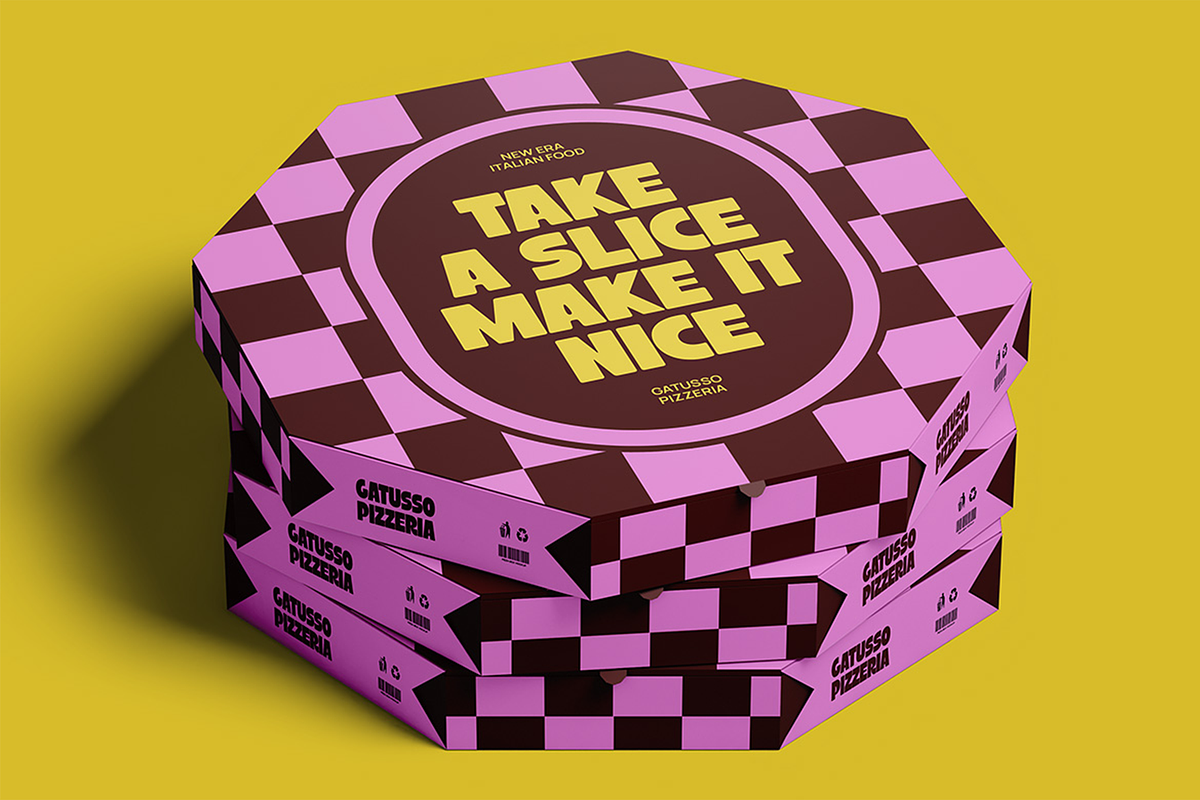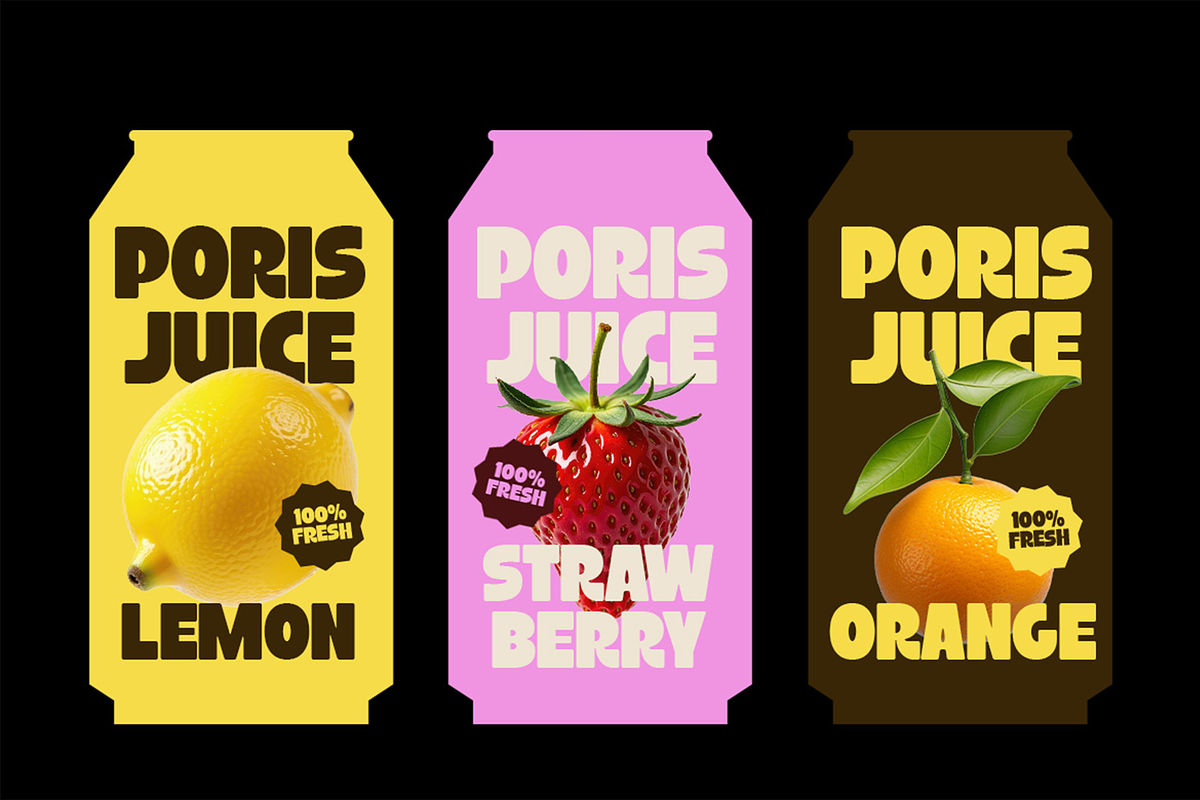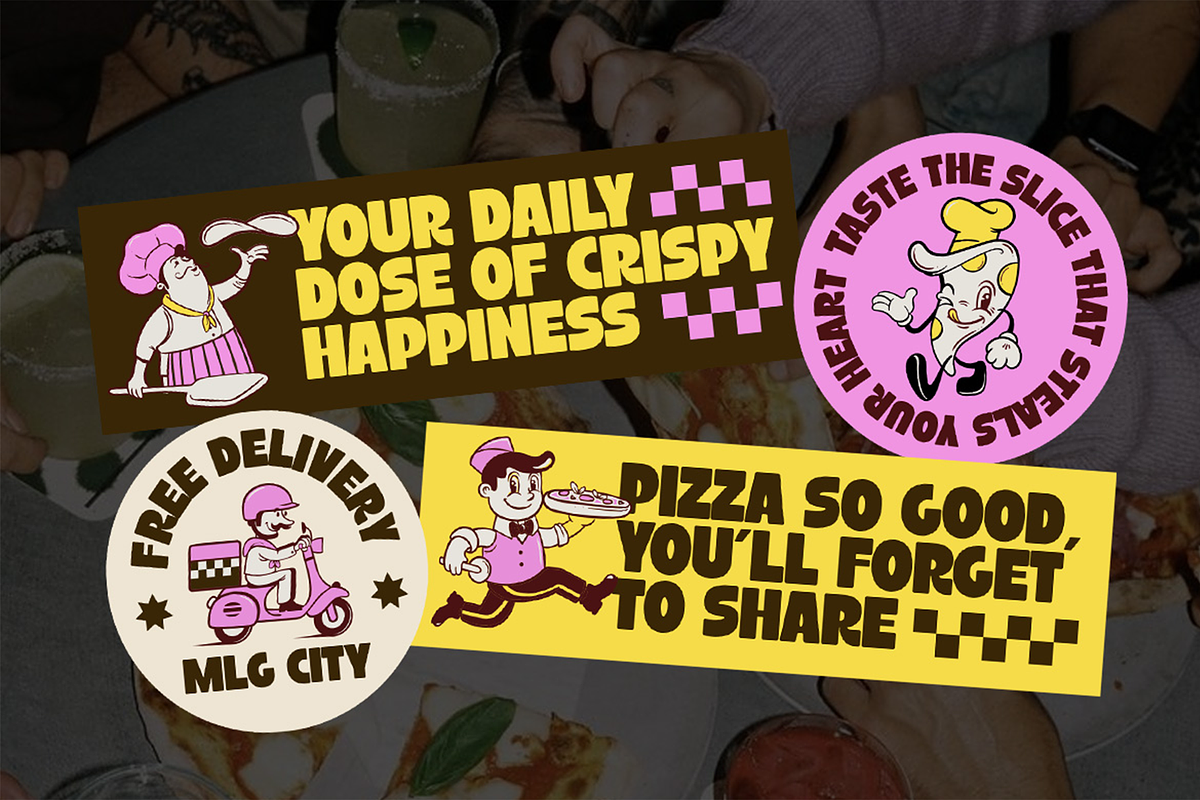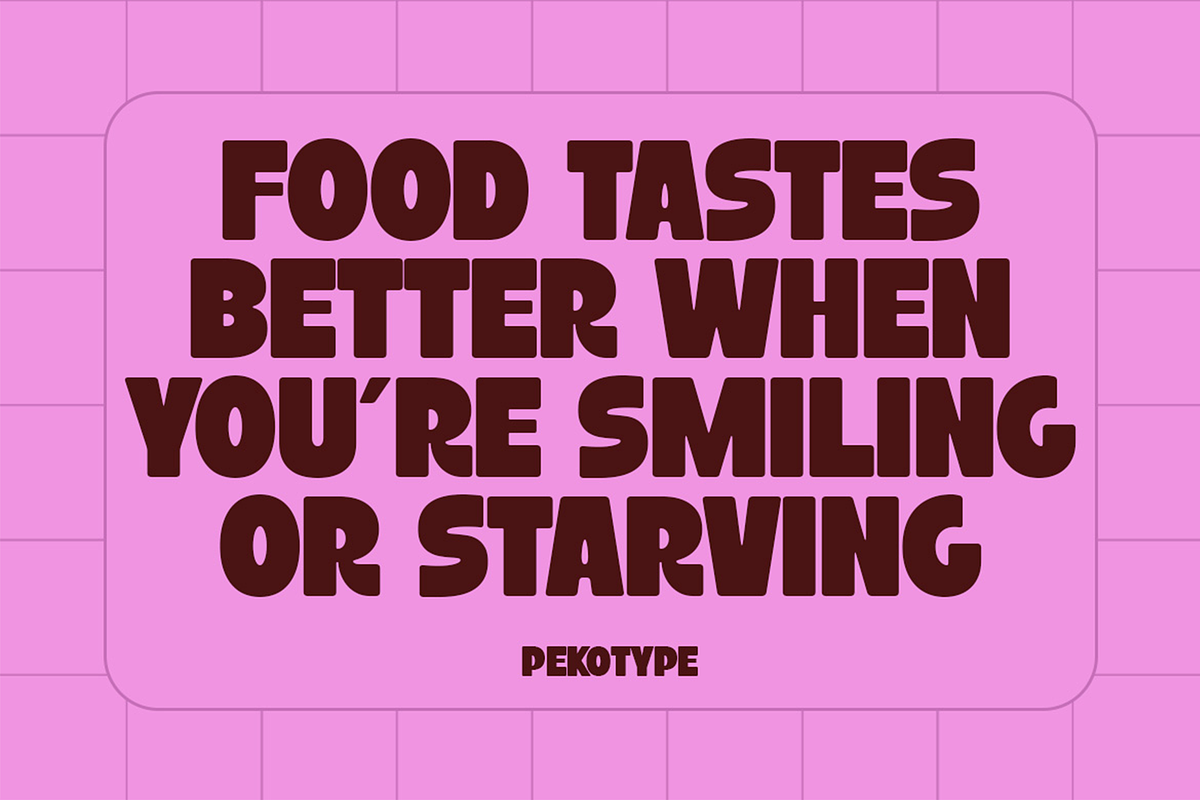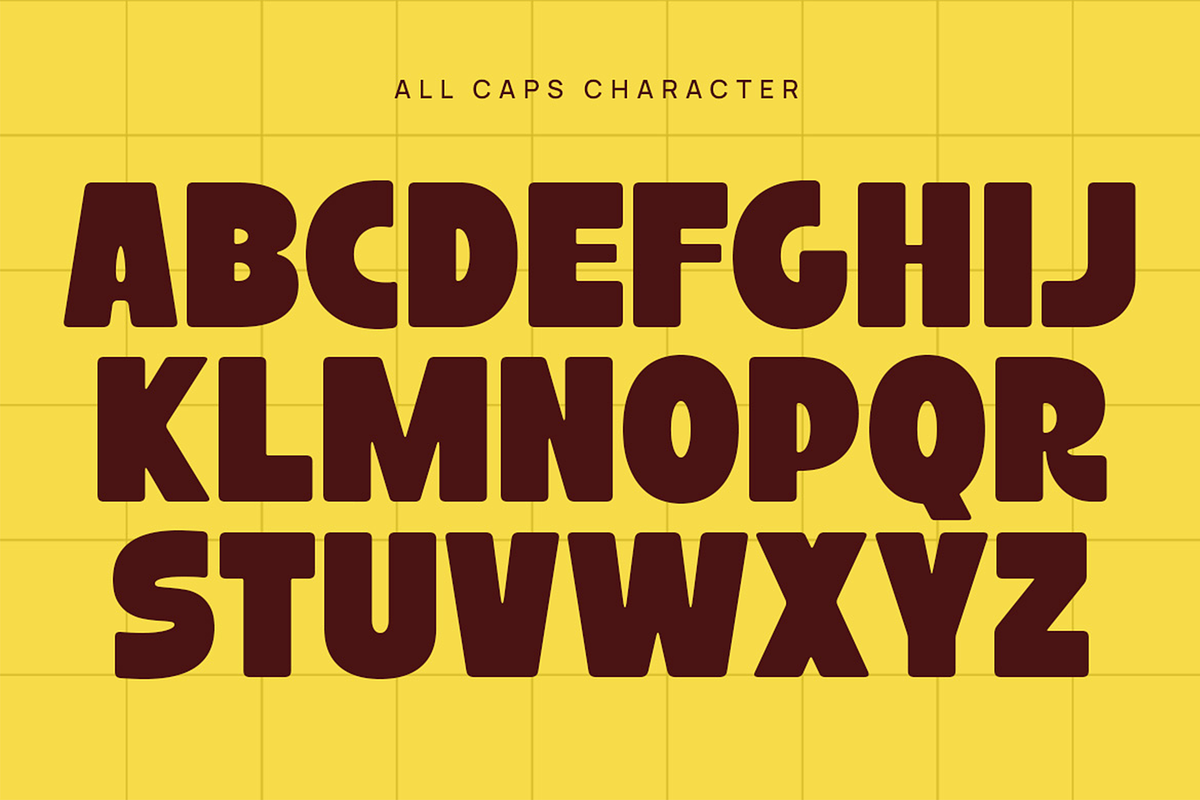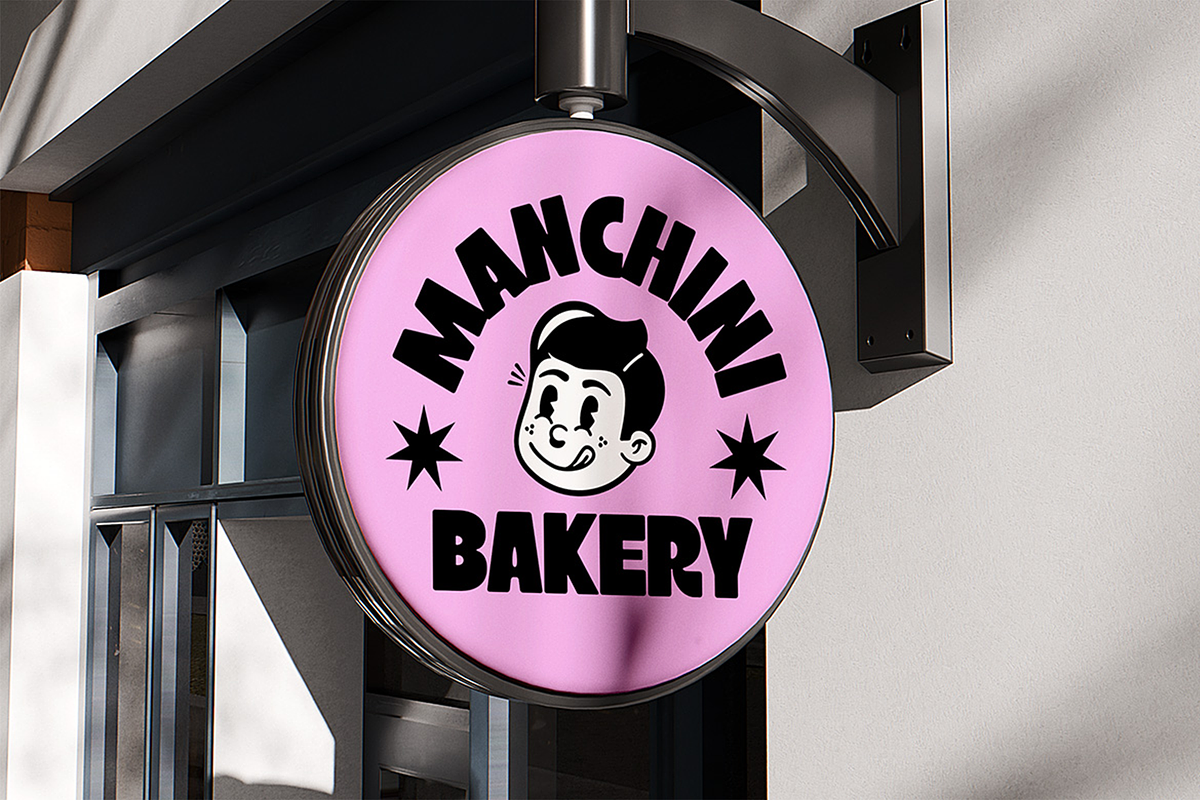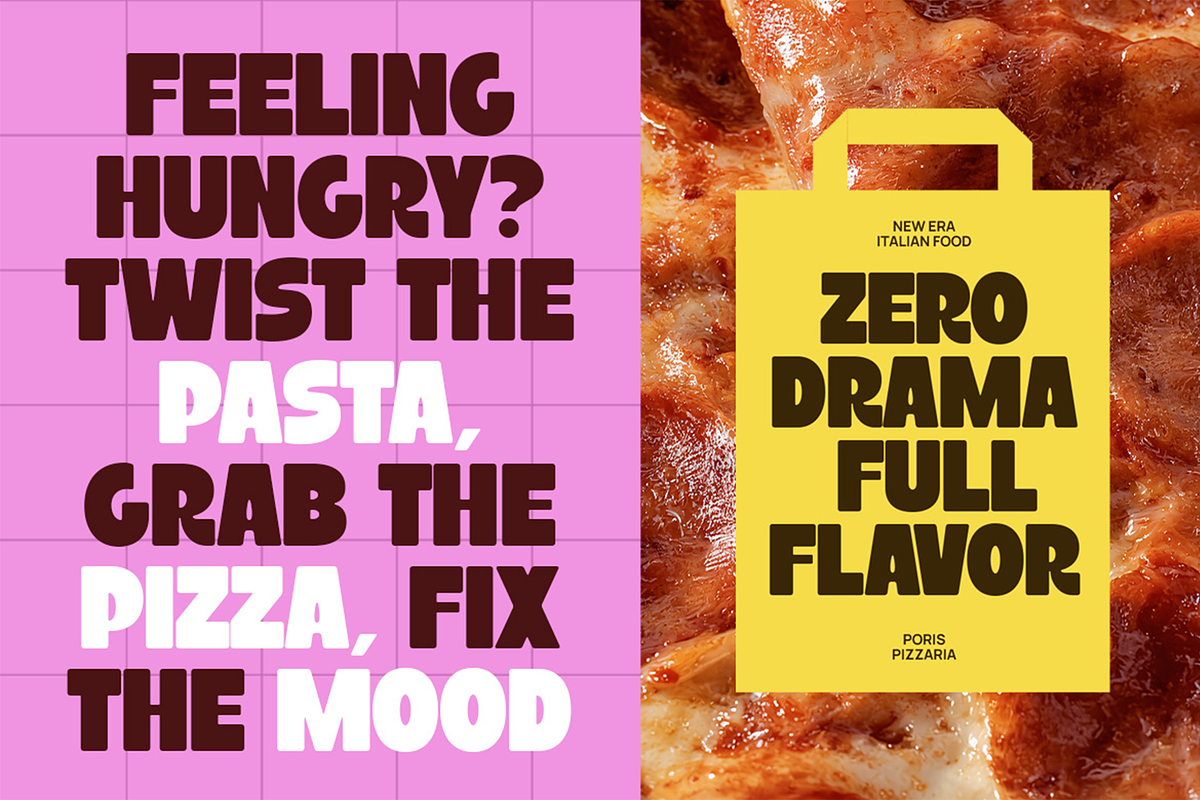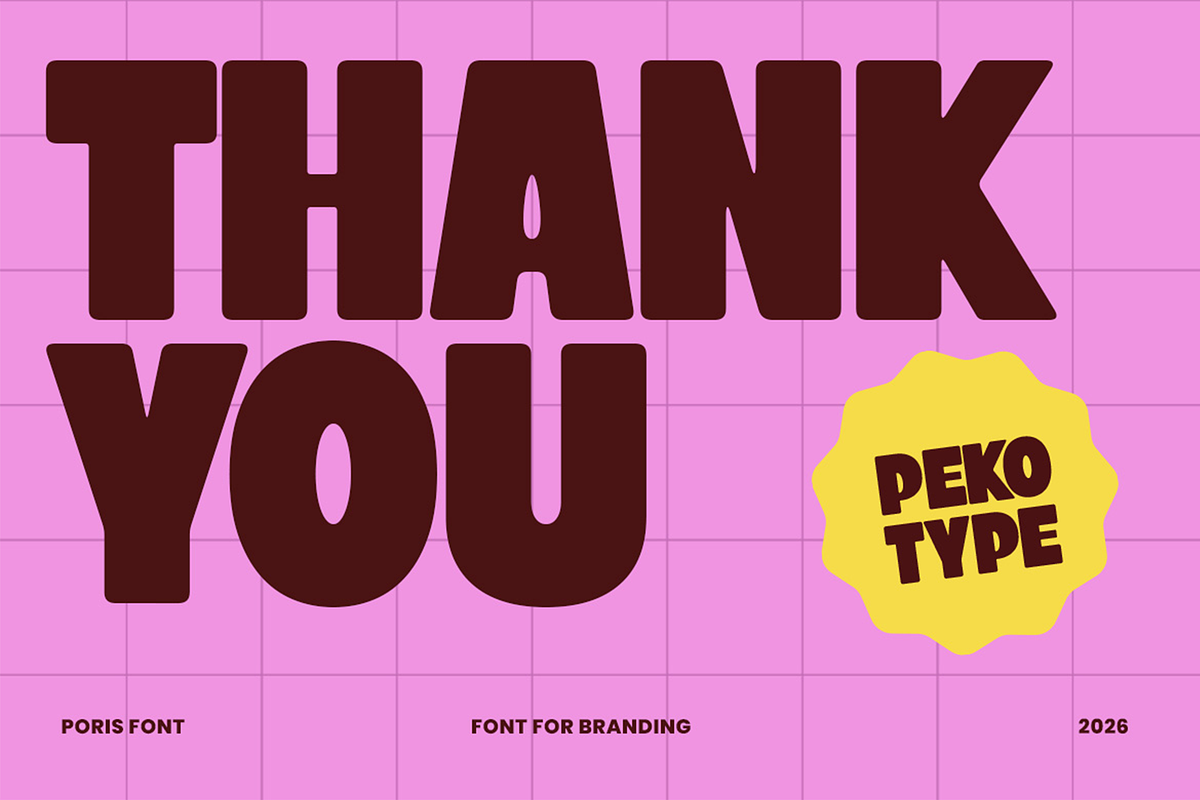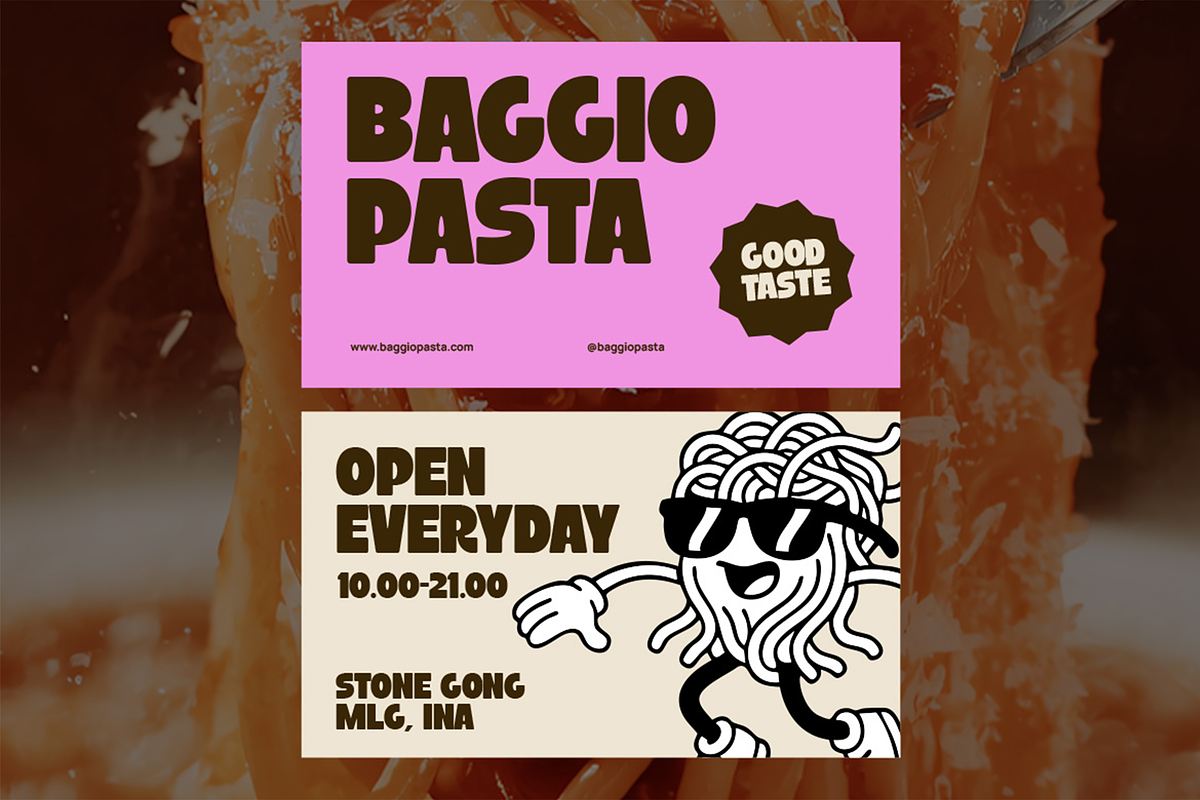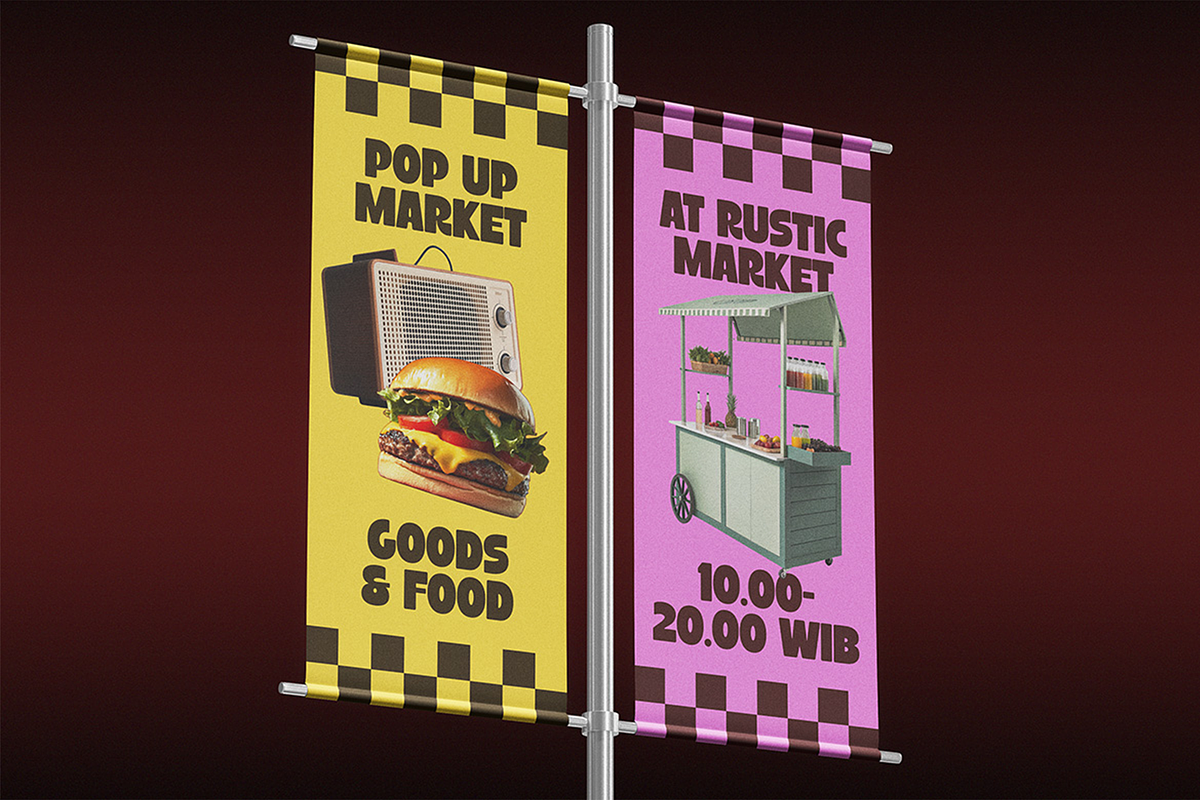
Poris - Modern Bold Display Font
PORIS – Modern Bold All Caps Display Font with a Retro Feel
PORIS is a modern and bold all caps display typeface with a strong retro vibe. Designed to be loud, playful, and full of personality, PORIS features chunky letterforms and smooth curves that instantly grab attention. Its bold construction makes every word feel powerful, fun, and highly memorable.
As an all caps font with multilingual support, PORIS is perfect for impactful headlines and branding that demand strong visual presence. It works beautifully for logos, branding, packaging, posters, marketing campaigns, social media content, food and beverage design, merchandise, and promotional materials.
PORIS is made for designers who want a typeface that feels energetic, friendly, and expressive. Whether you are building retro-inspired visuals or bold modern branding, PORIS delivers a unique typographic style that stands out in any creative project.
If you’re looking for a bold retro all caps font with modern energy, PORIS Typeface is the perfect choice to make your design loud, fun, and unforgettable.